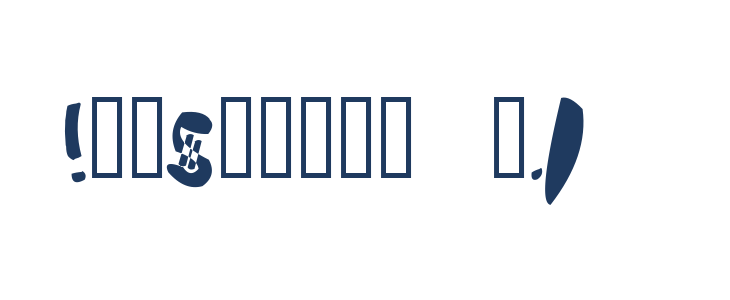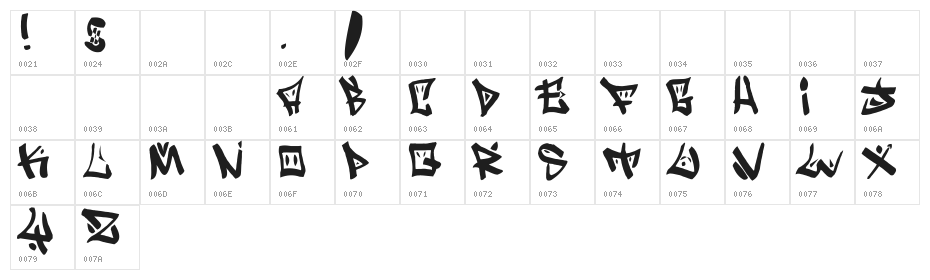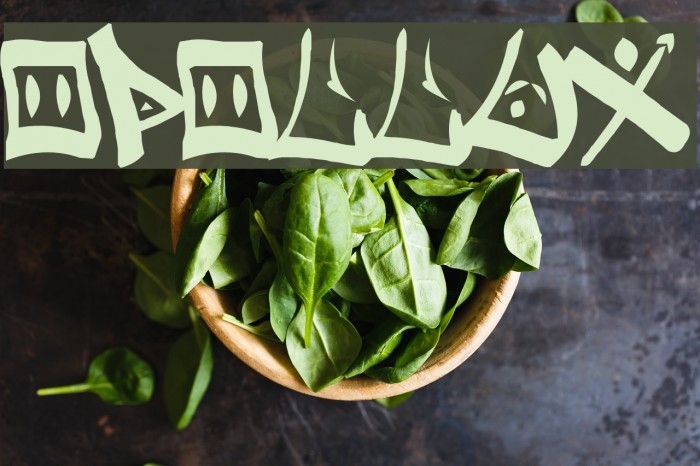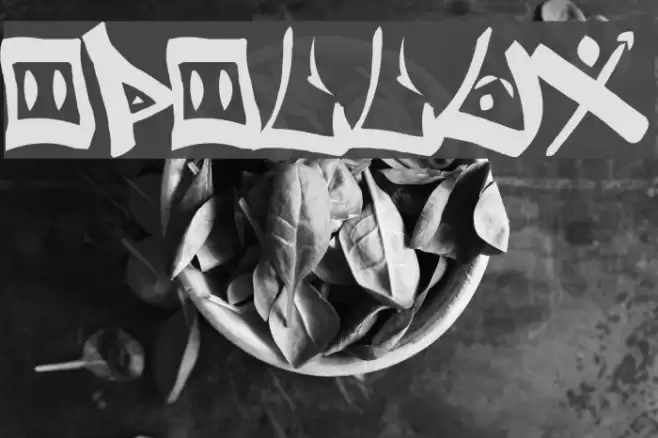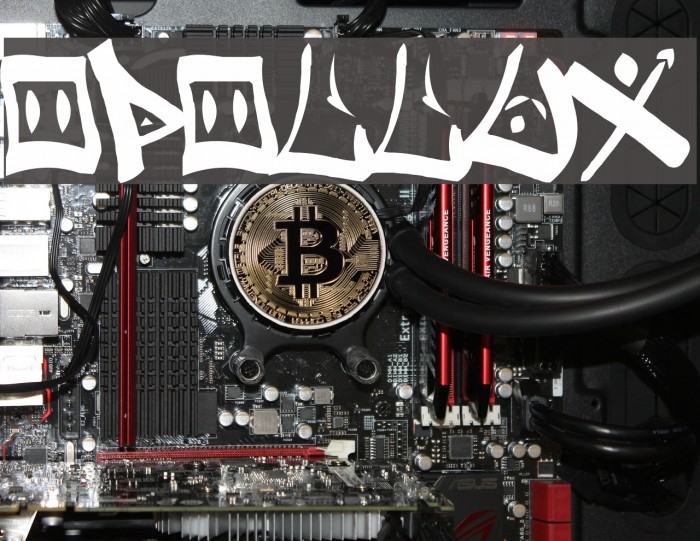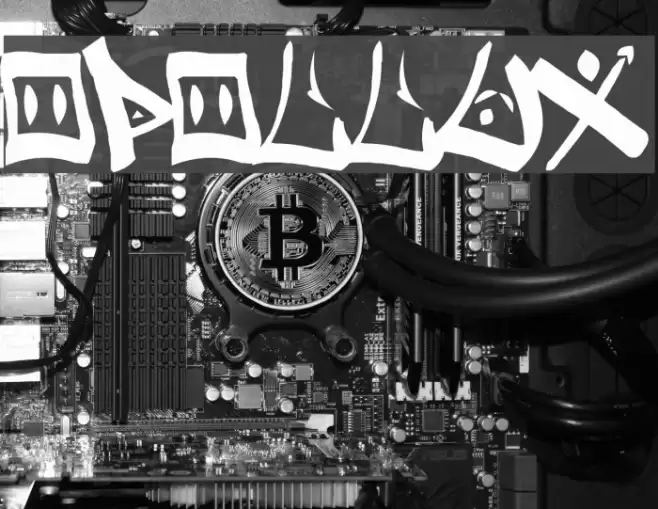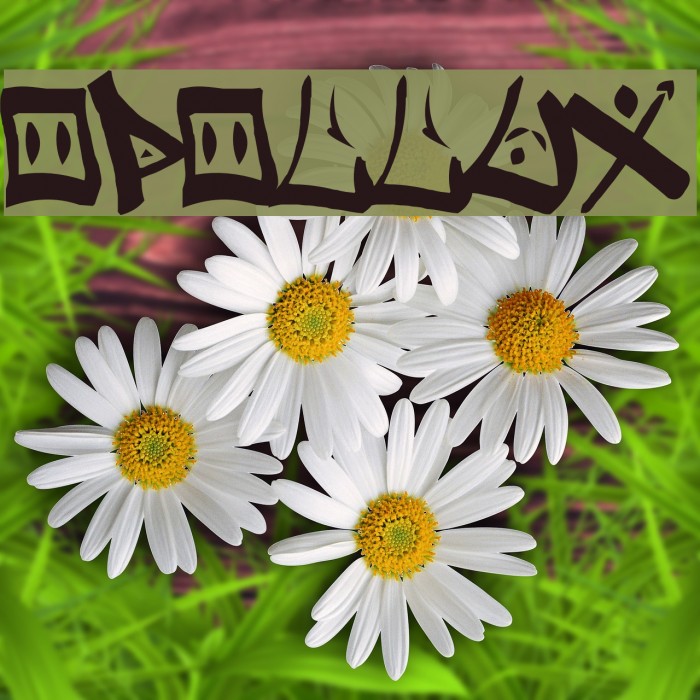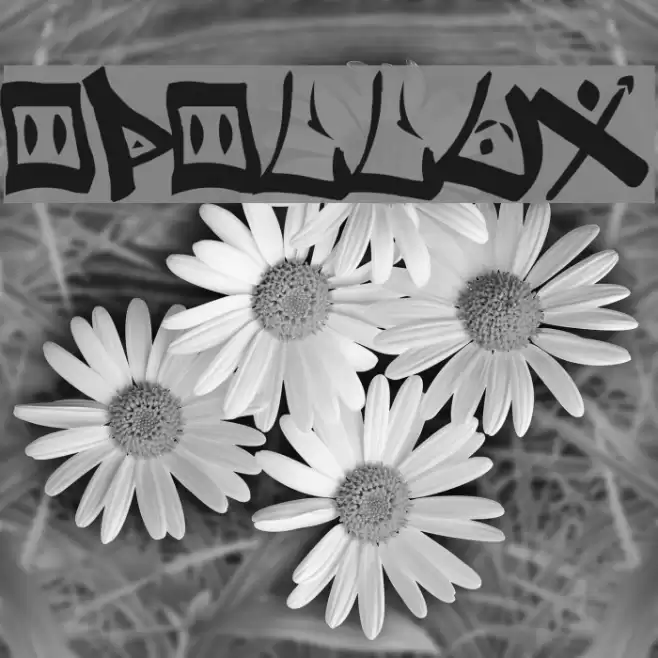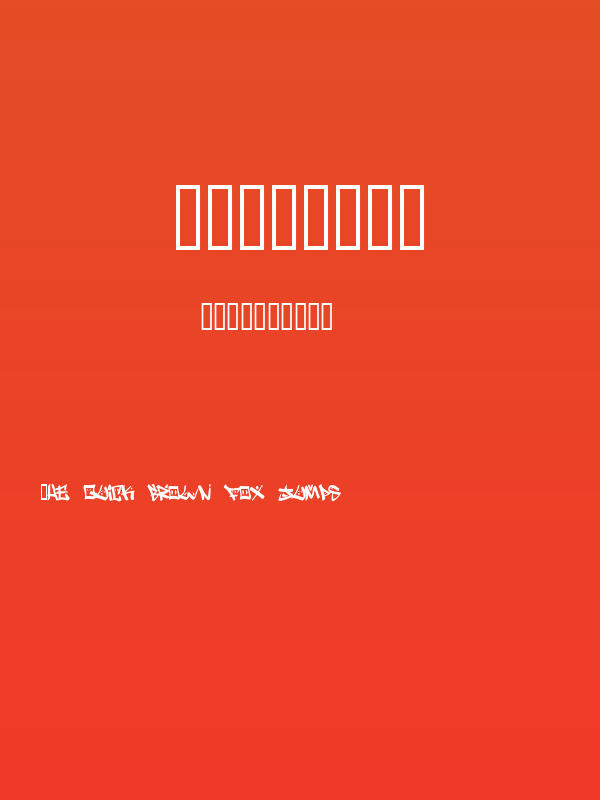
Bopollux Font
Bopollux Description
This font exudes a bold and rebellious spirit, reminiscent of urban graffiti art. The characters are highly stylized with sharp angles and exaggerated curves, giving them a dynamic and energetic appearance. The uppercase letters are particularly striking, with unique forms that suggest movement and creativity. The overall design is asymmetrical and irregular, adding to its edgy and unconventional feel. This font is perfect for projects that aim to capture a sense of street culture or alternative aesthetics.
| Overall Style | Urban, Graffiti, Edgy |
| Use Case | Logos, Posters, Album Covers |
| Proposed Projects | Ideal for street art projects, music album covers, urban-themed posters, and edgy branding. |